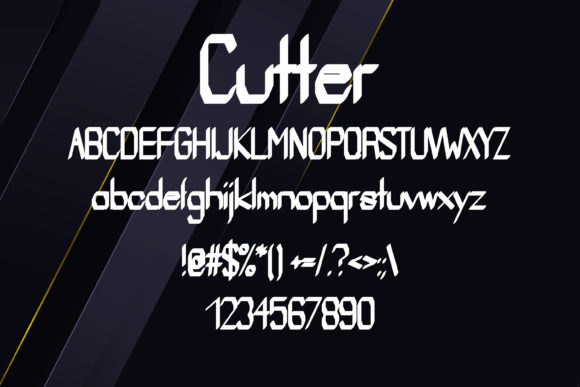
Cutter Font: Elevate Your Designs with a Bold and Unique Display Font
Are you tired of using the same old fonts in your designs? Do you want to add a touch of futurism and uniqueness to your projects? Look no further than the Cutter Font! This bold and geometrically shaped display font is perfect for designers and crafters looking to take their work to the next level.
What is Cutter Font?
Cutter Font is a display font that features bold, geometric shapes that are sure to make your designs stand out. With its unique and futuristic style, this font is perfect for a variety of projects, from logos and branding to posters and social media graphics.
Key Features of Cutter Font
- Bold and Geometric Shapes: The Cutter Font features bold, geometric shapes that are sure to grab attention.
- Unique and Futuristic Style: This font has a unique and futuristic style that is perfect for designers and crafters looking to add a touch of modernity to their work.
- Highly Versatile: The Cutter Font is highly versatile and can be used in a variety of projects, from logos and branding to posters and social media graphics.
- Easily Readable: Despite its bold and geometric shape, the Cutter Font is easily readable, making it perfect for use in a variety of contexts.
Benefits of Using Cutter Font
So why should you use the Cutter Font in your designs? Here are just a few benefits of using this unique and bold display font:
- Adds a Touch of Futurism: The Cutter Font adds a touch of futurism to your designs, making them stand out from the crowd.
- Increases Readability: The bold and geometric shapes of the Cutter Font make it easily readable, even at small sizes.
- Perfect for Logos and Branding: The Cutter Font is perfect for use in logos and branding, as it is highly memorable and can help to establish your brand identity.
- Versatile: The Cutter Font can be used in a variety of projects, from posters and social media graphics to business cards and brochures.
How to Use Cutter Font in Your Designs
Using the Cutter Font in your designs is easy! Here are a few tips to get you started:
- Pair with a Simple Font: Pair the Cutter Font with a simple font to create contrast and make your design stand out.
- Use in Large Sizes: The Cutter Font is perfect for use in large sizes, such as headings and titles.
- Experiment with Colors: The Cutter Font looks great in a variety of colors, so don’t be afraid to experiment and find the perfect color for your design.
Why Designers and Crafters Love Cutter Font
Designers and crafters love the Cutter Font for a variety of reasons. Here are just a few:
- Unique Style: The Cutter Font has a unique style that is sure to make your designs stand out.
- Easily Customizable: The Cutter Font is easily customizable, making it perfect for use in a variety of projects.
- High-Quality: The Cutter Font is a high-quality font that is sure to impress.